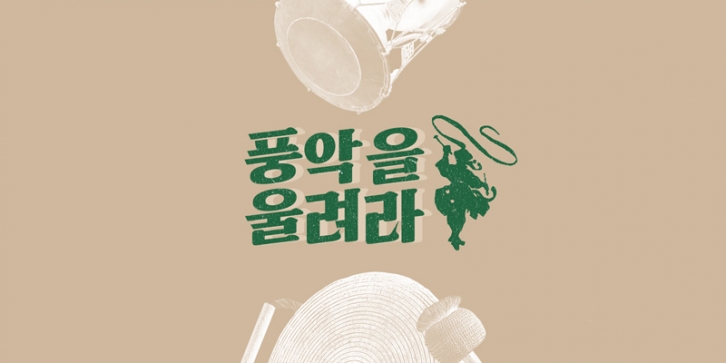
RixJongno is a soft and friendly imaged font with serif.
It is optimized to emphasize phrases and empower ideas, with its vigorous curves and full square structure.
Vertical writing can be expressed aesthetically pleasing as its vertical axe is tilted.